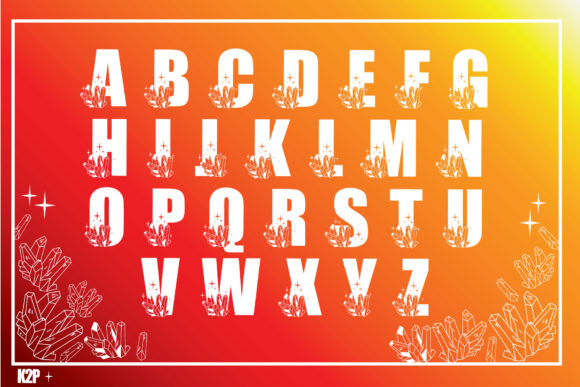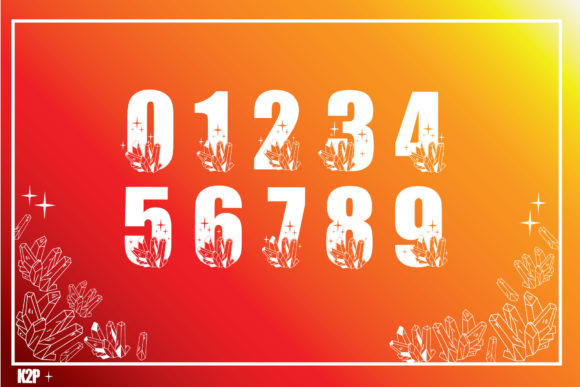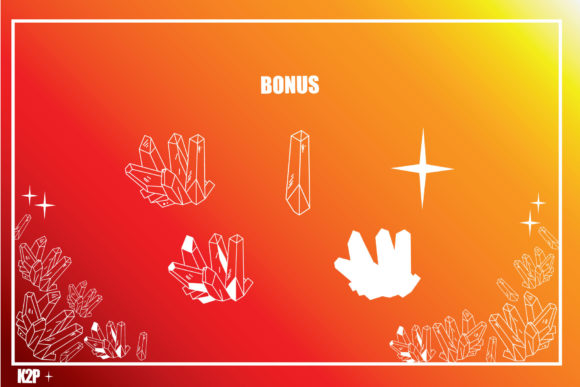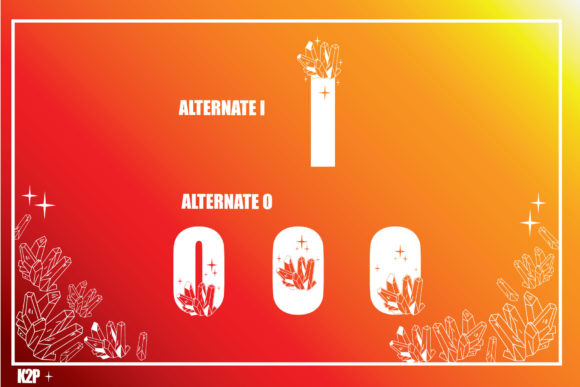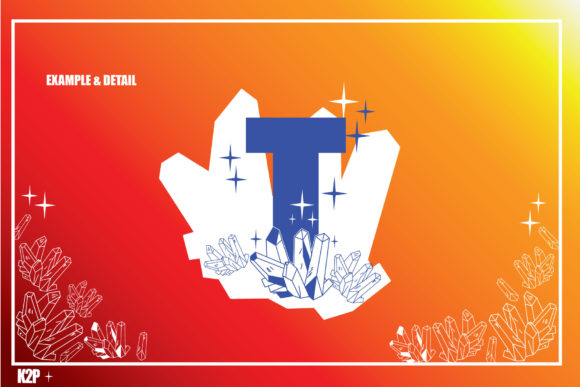
Introducing Gemstones Font: A Bold and Assertive Decorative Font for Creative Projects
Are you looking for a font that can add a touch of elegance and sophistication to your branding projects? Look no further than Gemstones Font, a bold and assertive decorative font that’s perfect for logos, t-shirt printing, creative products, and more. In this article, we’ll explore the features and benefits of Gemstones Font, and show you how to make the most of this beautiful font.
What is Gemstones Font?
Gemstones Font is a decorative font that’s designed to make a statement. Its bold and assertive style makes it perfect for projects that require a touch of luxury and sophistication. The font is inspired by the beauty and elegance of gemstones, and its unique design elements are sure to capture the attention of your audience.
Key Features of Gemstones Font
- Bold and Assertive Style: Gemstones Font is designed to make a statement. Its bold and assertive style makes it perfect for logos, headlines, and other applications where you want to grab the attention of your audience.
- Decorative Elements: The font features decorative elements that are inspired by gemstones. These elements add a touch of elegance and sophistication to your designs, making them perfect for high-end branding projects.
- Highly Versatile: Gemstones Font is highly versatile and can be used for a wide range of projects, including logos, t-shirt printing, creative products, and more.
Benefits of Using Gemstones Font
There are many benefits to using Gemstones Font for your branding projects. Here are just a few:
- Stand Out from the Crowd: With Gemstones Font, you can create designs that stand out from the crowd. The font’s bold and assertive style makes it perfect for projects that require a touch of luxury and sophistication.
- Professional-Looking Designs: The font is designed to create professional-looking designs that are perfect for high-end branding projects. Whether you’re creating a logo, brochure, or website, Gemstones Font can help you create a design that looks polished and professional.
- Endless Variations: Gemstones Font offers endless variations, making it easy to create unique designs that reflect your brand’s personality. You can experiment with different colors, textures, and design elements to create a design that’s truly one-of-a-kind.
Tips and Tricks for Getting the Most out of Gemstones Font
Here are a few tips and tricks for getting the most out of Gemstones Font:
- Use it for Headlines and Logos: Gemstones Font is perfect for headlines and logos. Use it to create bold and attention-grabbing headlines that capture the attention of your audience.
- Experiment with Different Colors: The font looks great in a variety of colors. Experiment with different colors and textures to create a unique look that reflects your brand’s personality.
- Pair it with Other Fonts: Gemstones Font can be paired with other fonts to create a unique and interesting design. Experiment with different font combinations to find the perfect look for your project.